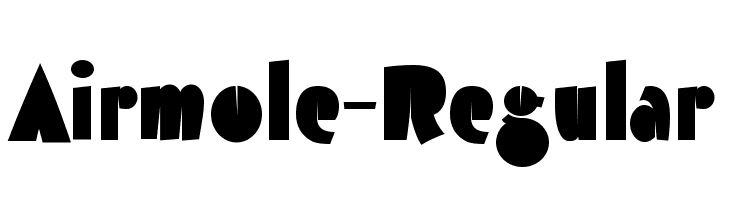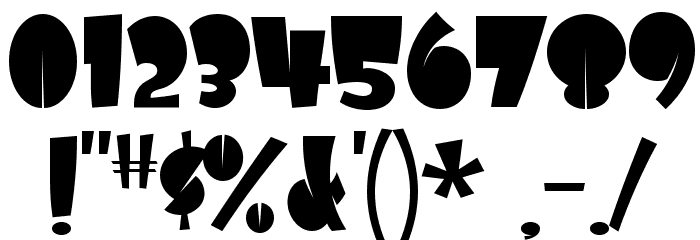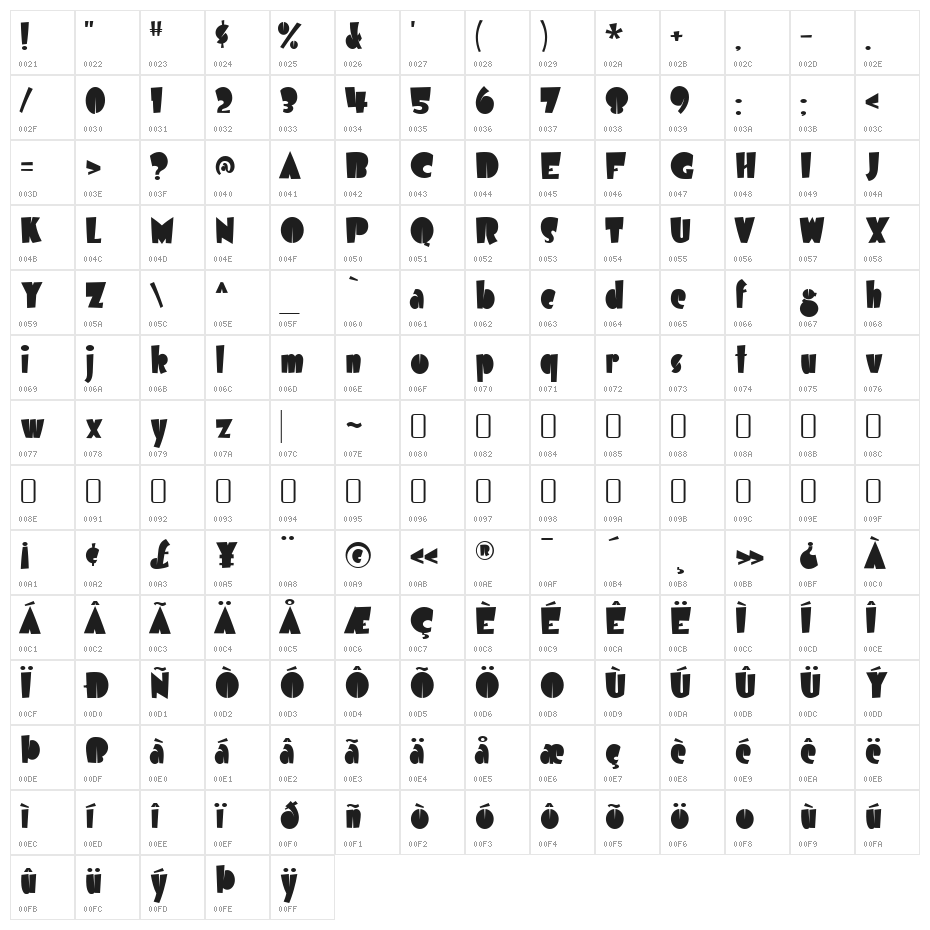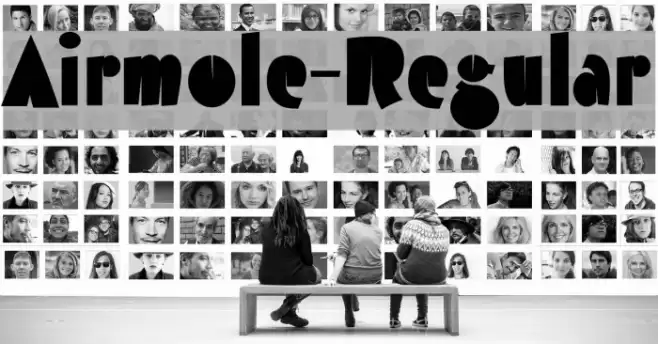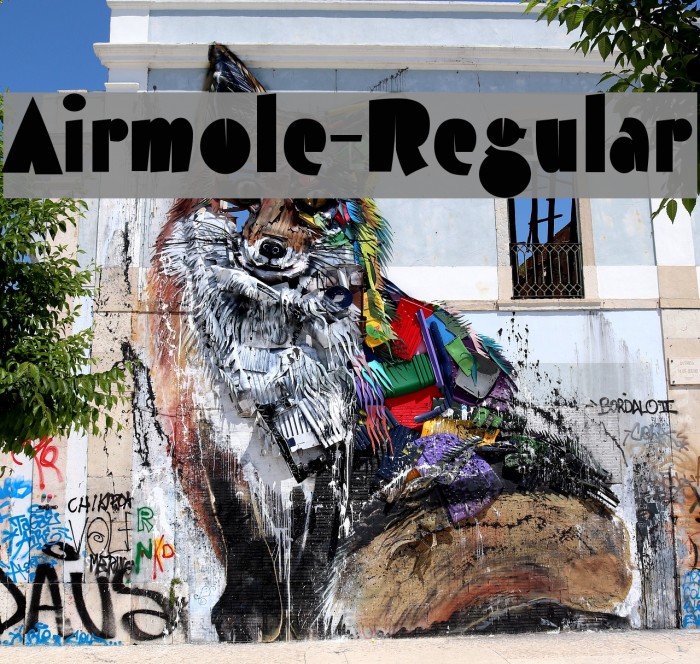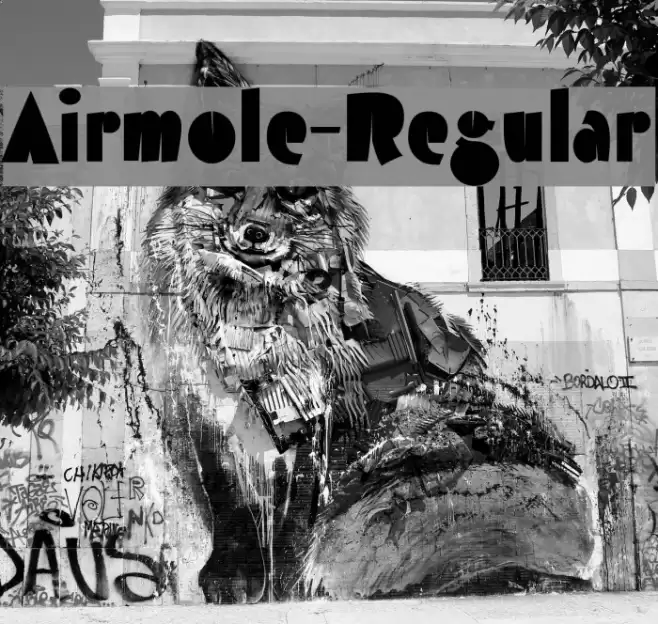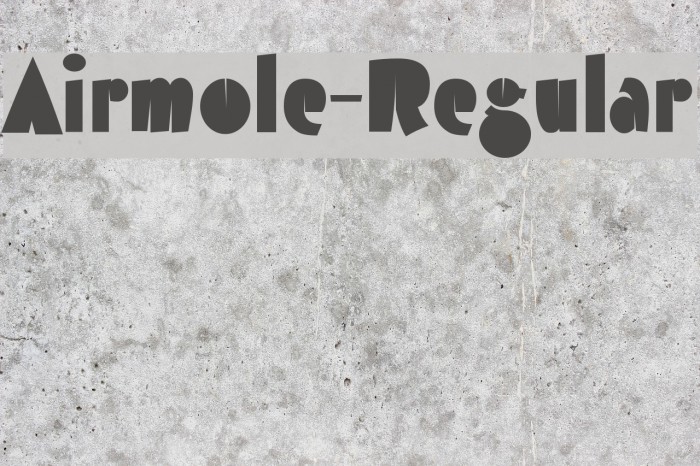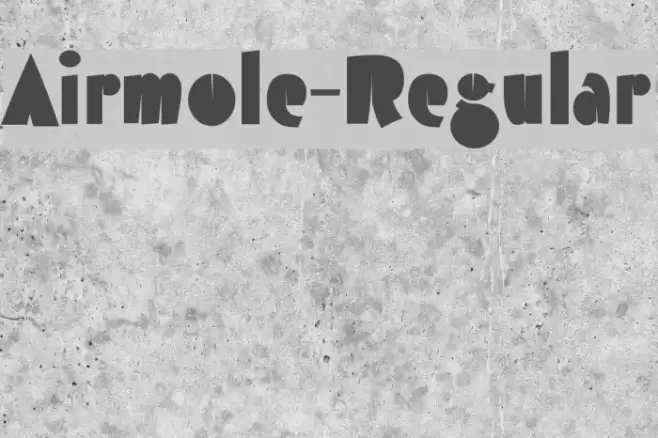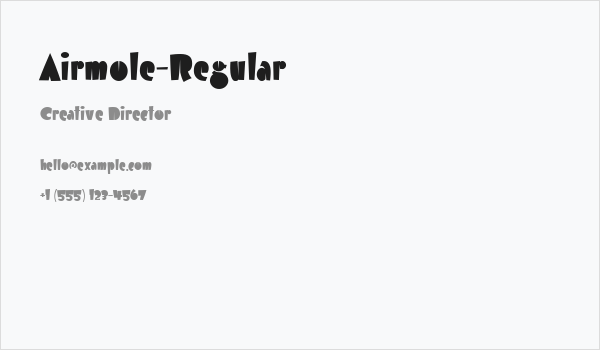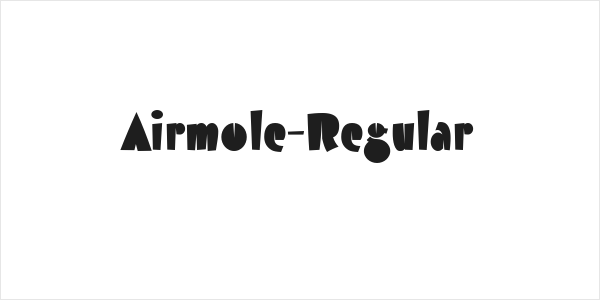
Airmole-Regular Font
Airmole-Regular Description
This font features a bold and playful design with a distinct geometric influence. The characters are heavily stylized, with sharp angles and exaggerated curves that create a dynamic and eye-catching appearance. The uppercase letters are particularly striking, with a strong presence that commands attention. The lowercase letters maintain the same boldness, ensuring consistency across text. The numbers and special characters follow the same design principles, making them easily recognizable and cohesive with the rest of the font. This font's unique style makes it ideal for creative and artistic projects.
Proposed ProjectsIdeal for posters, logos, branding, and any project requiring a bold, artistic touch.